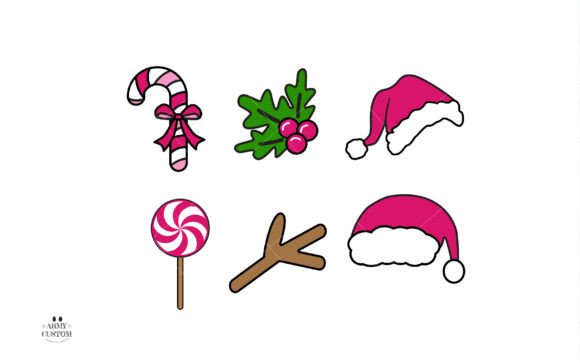
Candy Pink Font
Introducing Candy Cane Christmas Font — a delightful infusion of color that invigorates your artistic toolbox. Exuding a vibrant, festive joie de vivre, this font elevates your designs by encapsulating the jubilant spirit of holiday cheer. Capture the essence of the season with Candy Cane Christmas Font, your go-to choice for evoking that irreplaceable warmth and merriment.The black version of this font is compatible with Cricut Design Space and other cutting machines.Note! The color version of this font is only compatible with certain design programs incl. PhotoShop, Illustrator, Silhouette, and Inkscape. The OTF and/or TTF files of the color version are not compatible with Cricut. For more information on how to use this type of font please check our Ultimate Font Guide .